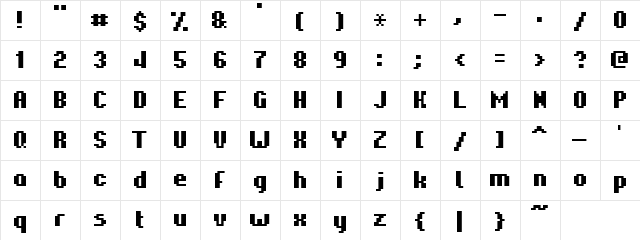
Genx Cond Cyr Regular Font Preview
Genx Cond Cyr Regular
Design Context for Genx Cond Cyr Typeface
Genx Cond Cyr takes a measured approach to typography — its balanced proportions and neutral character make it a reliable workhorse for both digital and print work. The condensed width makes it efficient for tight spaces without sacrificing legibility.